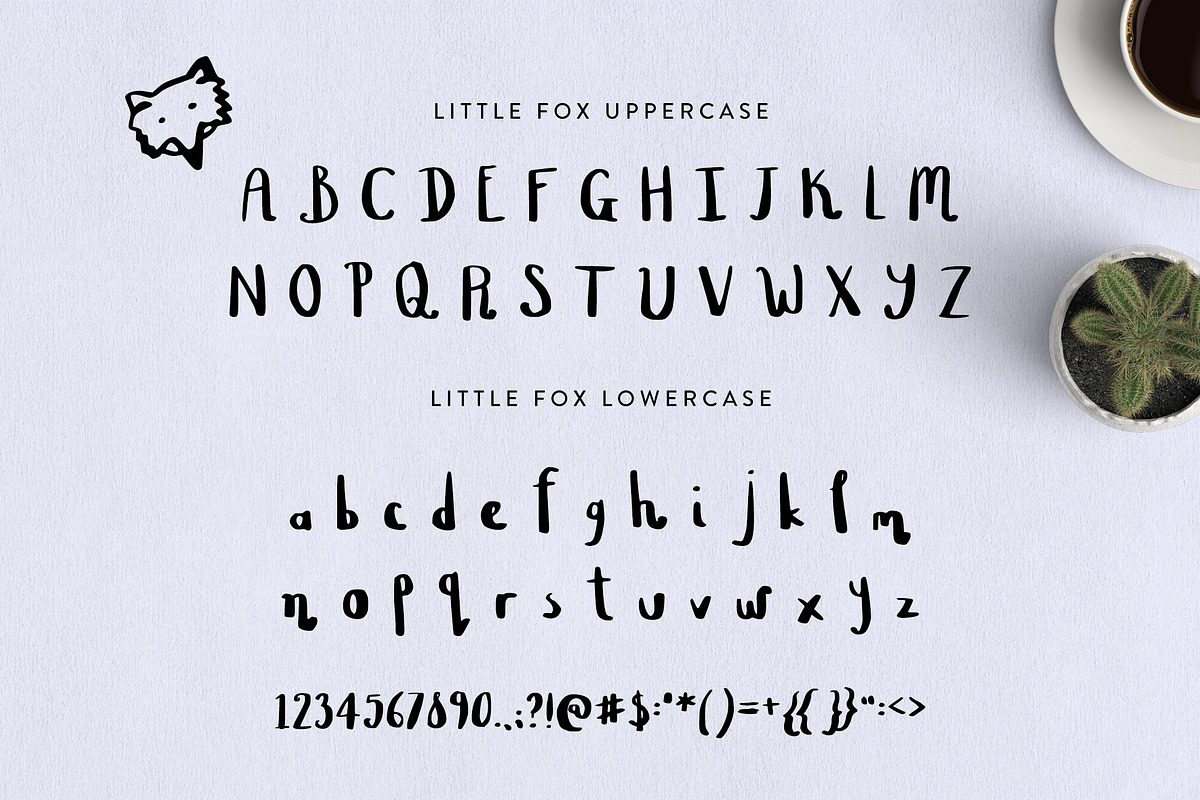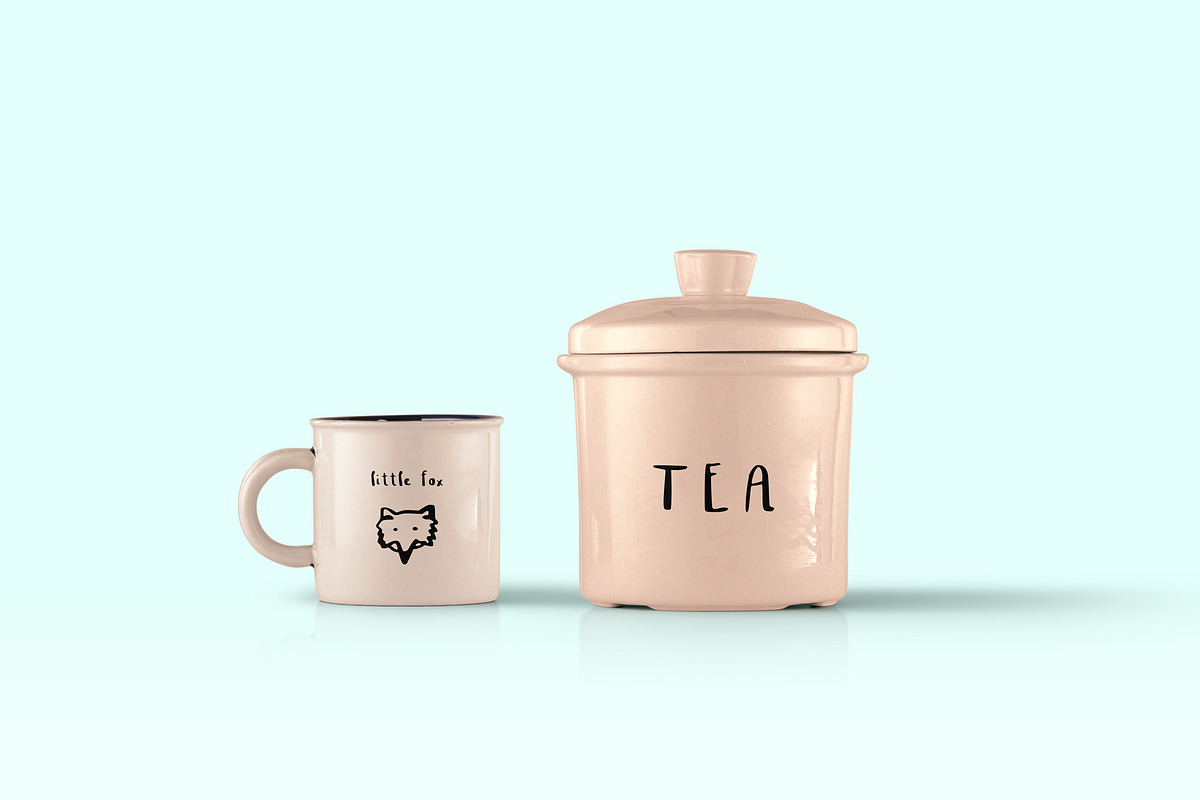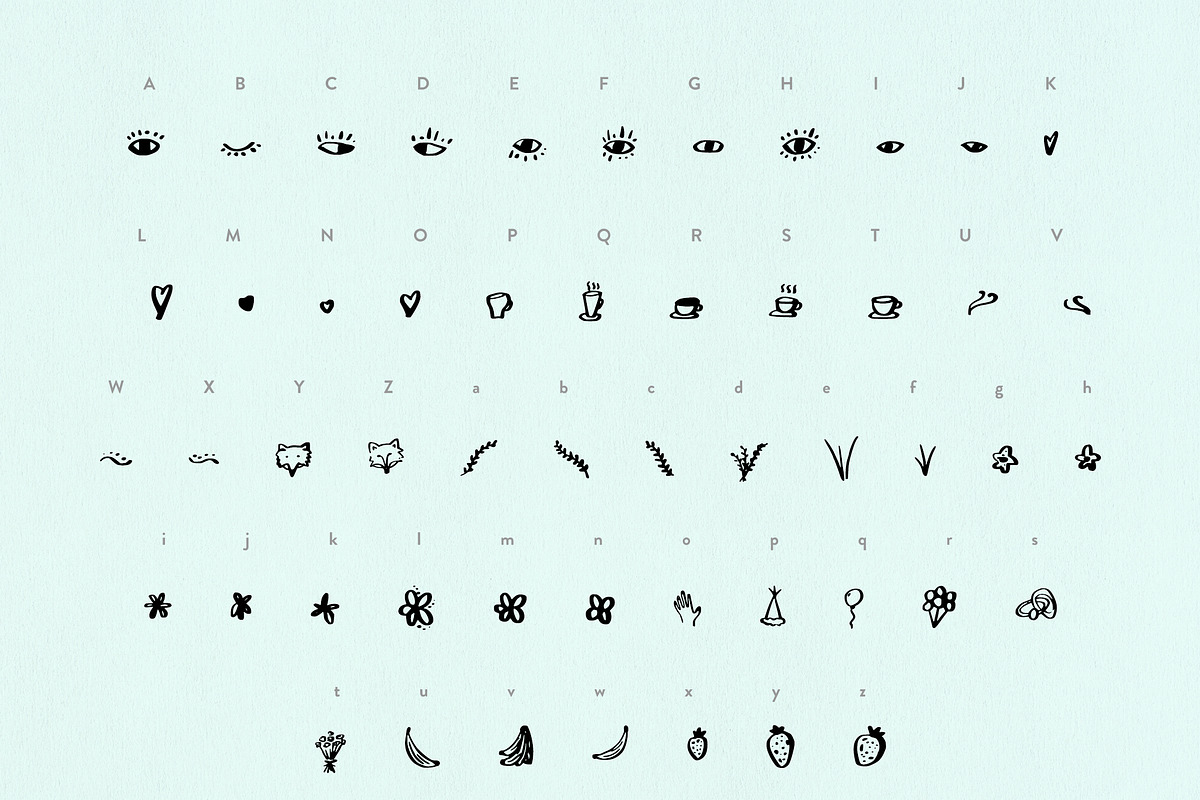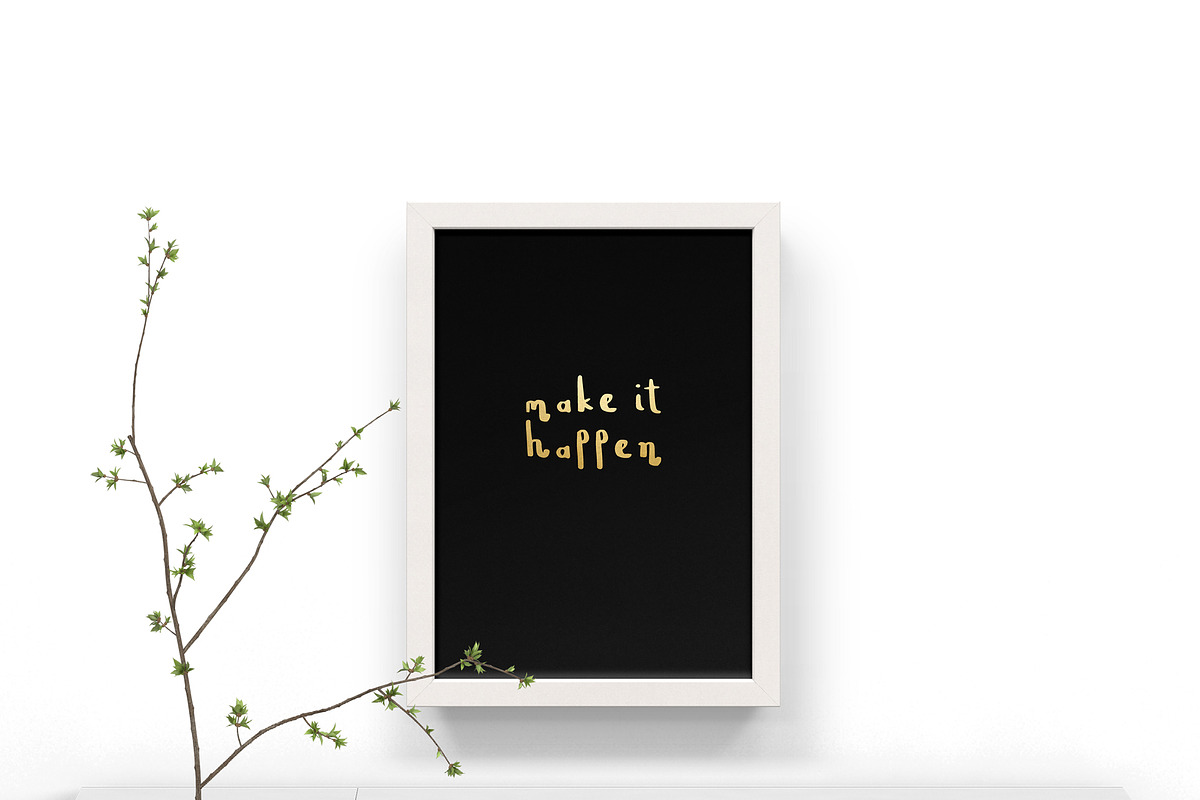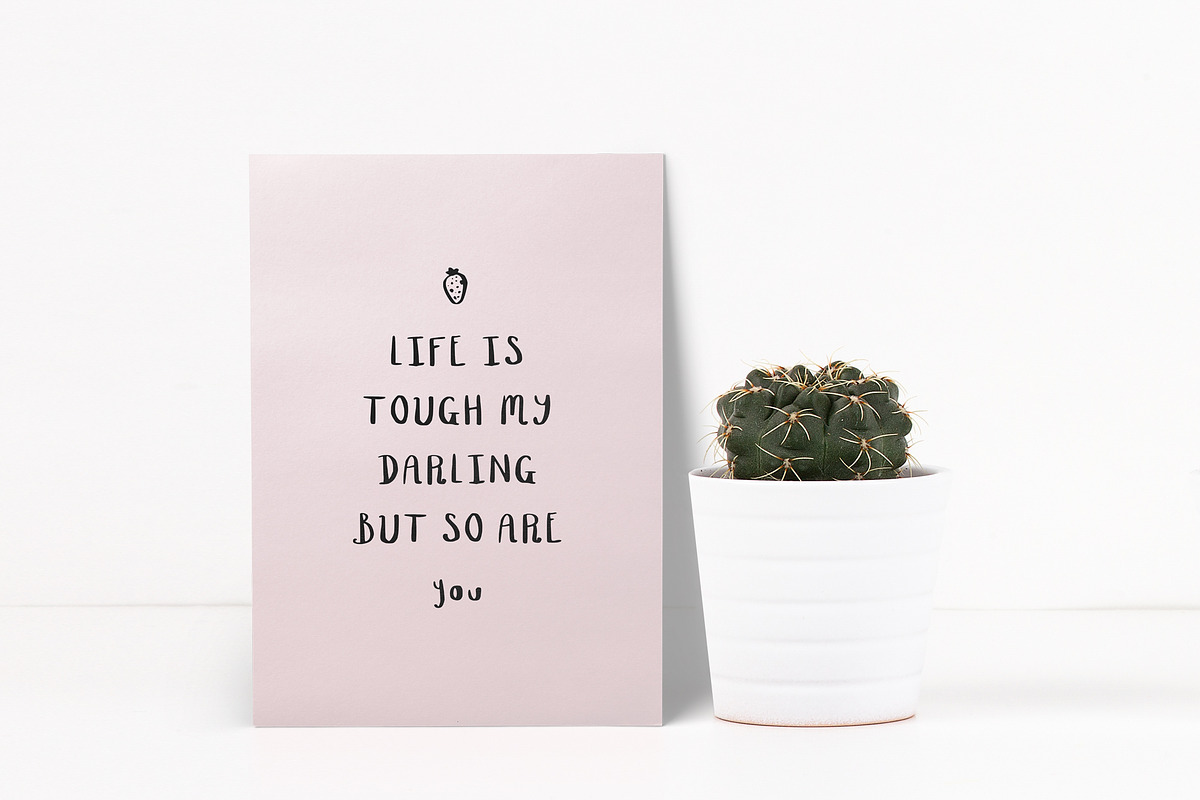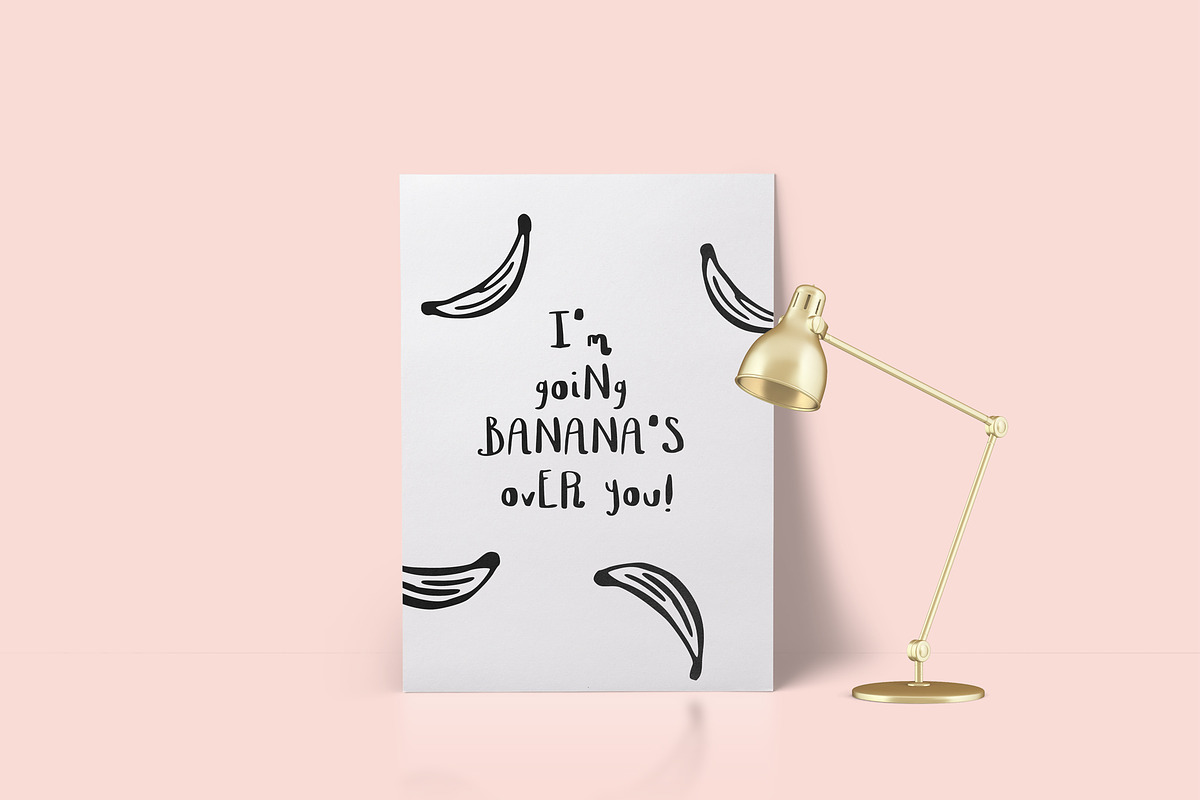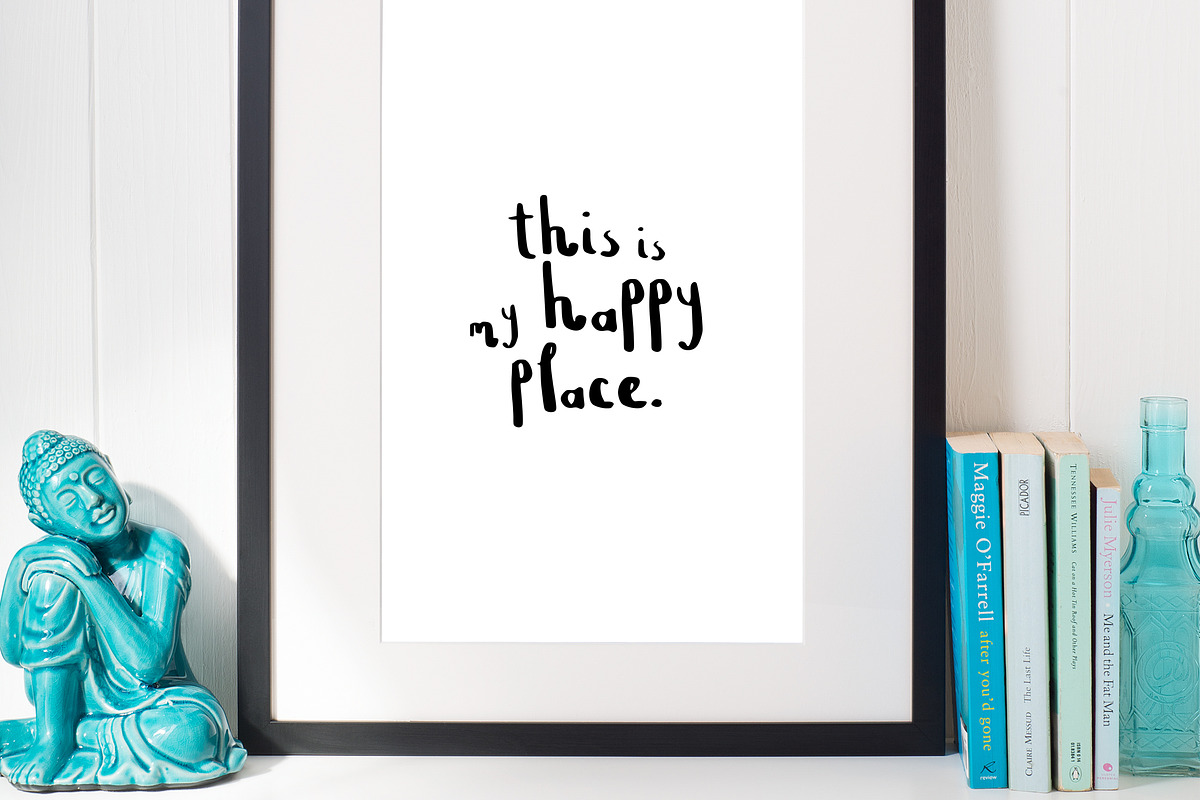
Little Fox Brush Font
Little Fox Brush Font by GraphicSupplyCo. is a font selected for branding, posters, packaging, typography.
- Little fox comes with a whole extra uppercase and lowercase alphabet full of extra elements and illustrations.
- Little Fox comes in uppercase and lowercase with 52 add-on elements and illustrations.
Why Little Fox Brush Font is worth a look
Little Fox Brush Font by GraphicSupplyCo. fits naturally into Branding, posters, packaging, typography.